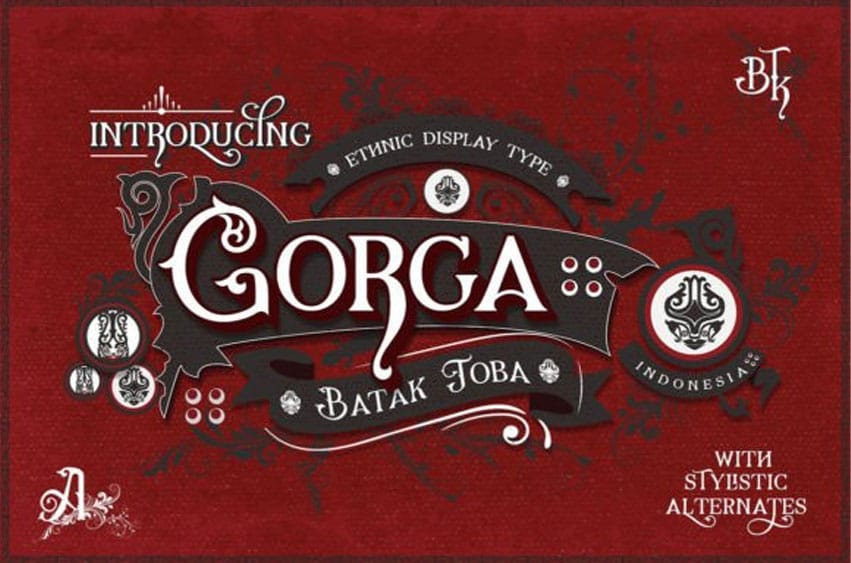
Gorga Font is an ornamental serif font that exudes a vintage charm, featuring intricate details and decorative elements that harken back to a bygone era.
The elegant and flowing strokes of the letters are paired with ornate serifs, creating a timeless and sophisticated design. This font is perfect for adding a touch of nostalgia to invitations, packaging, and editorial layouts.